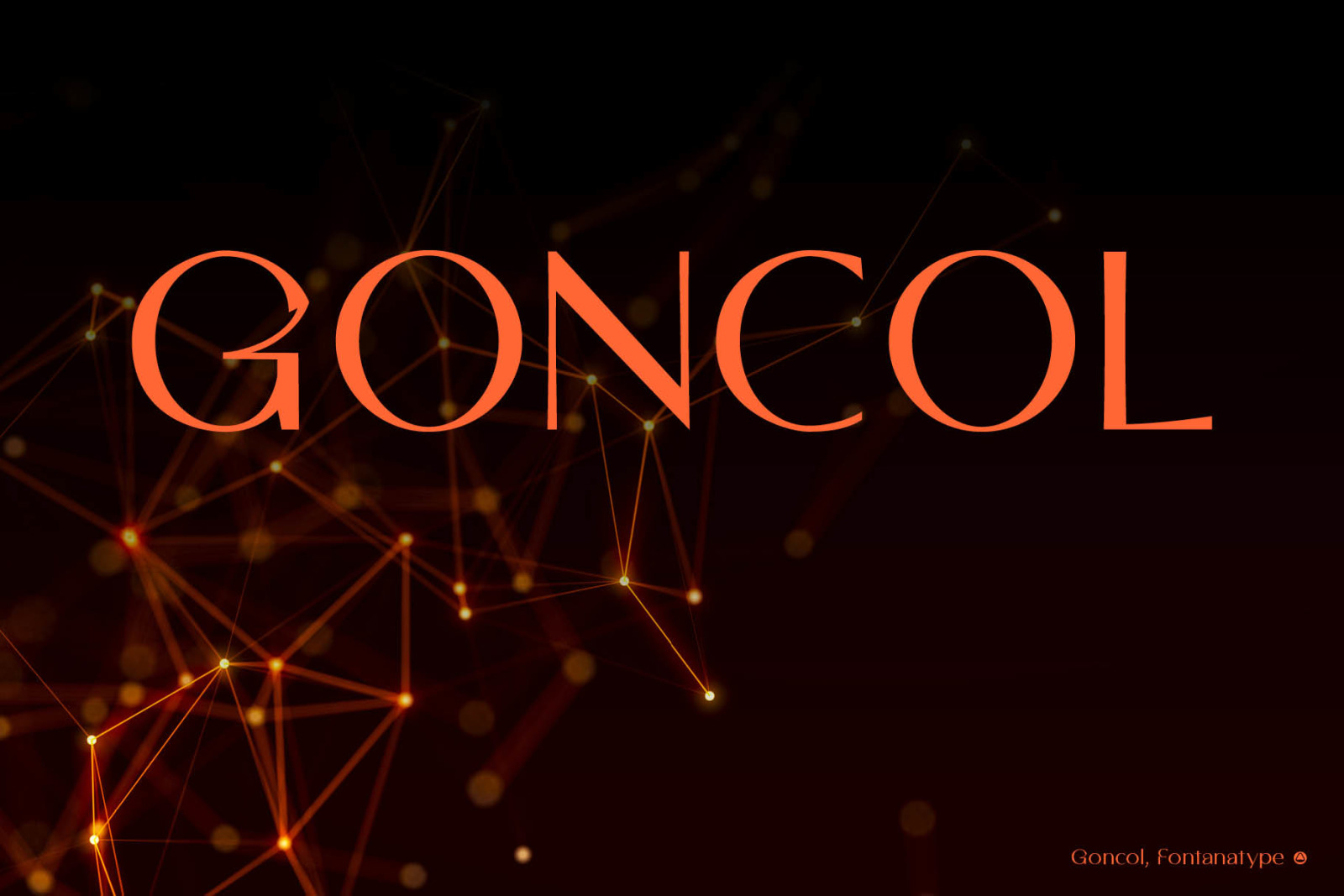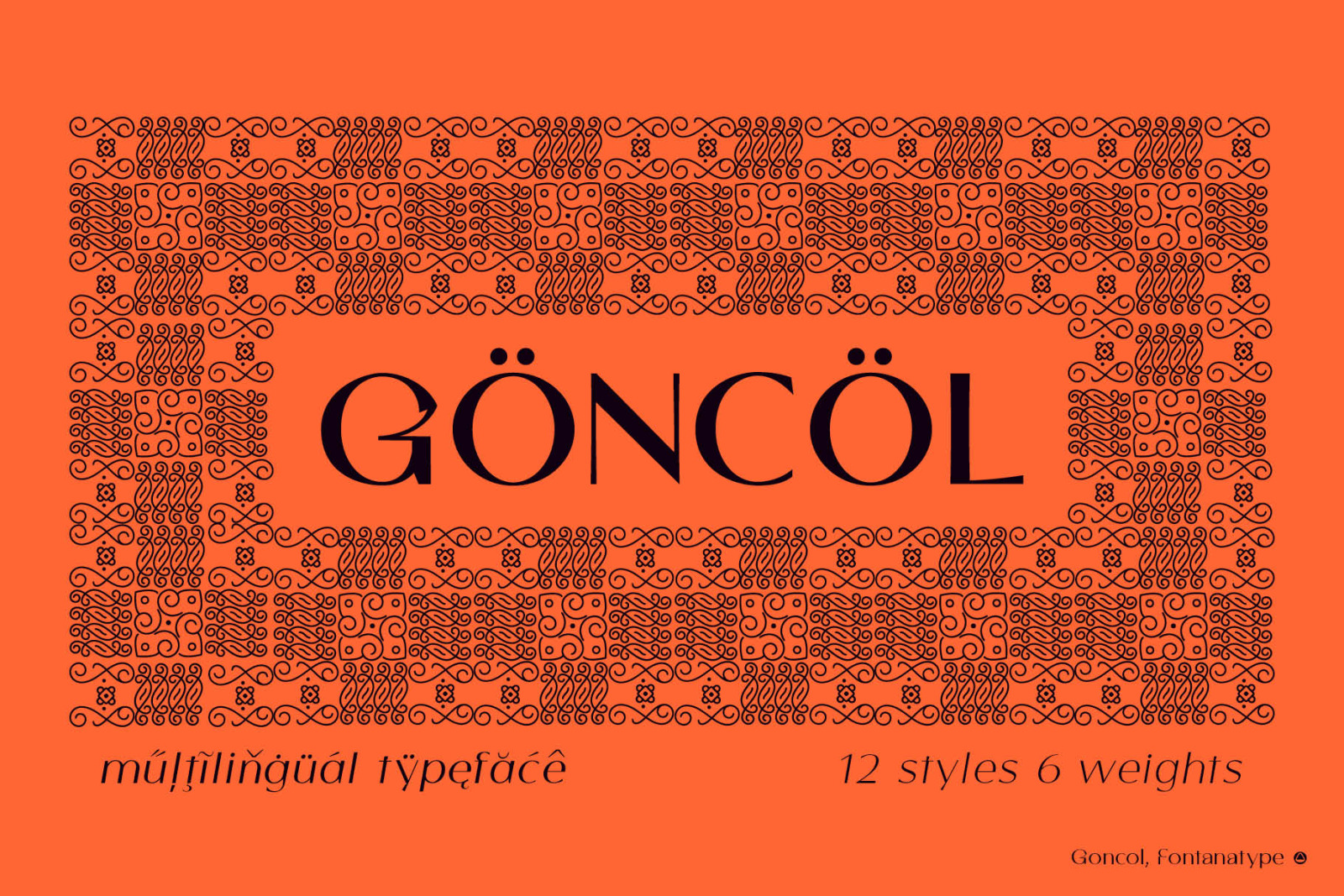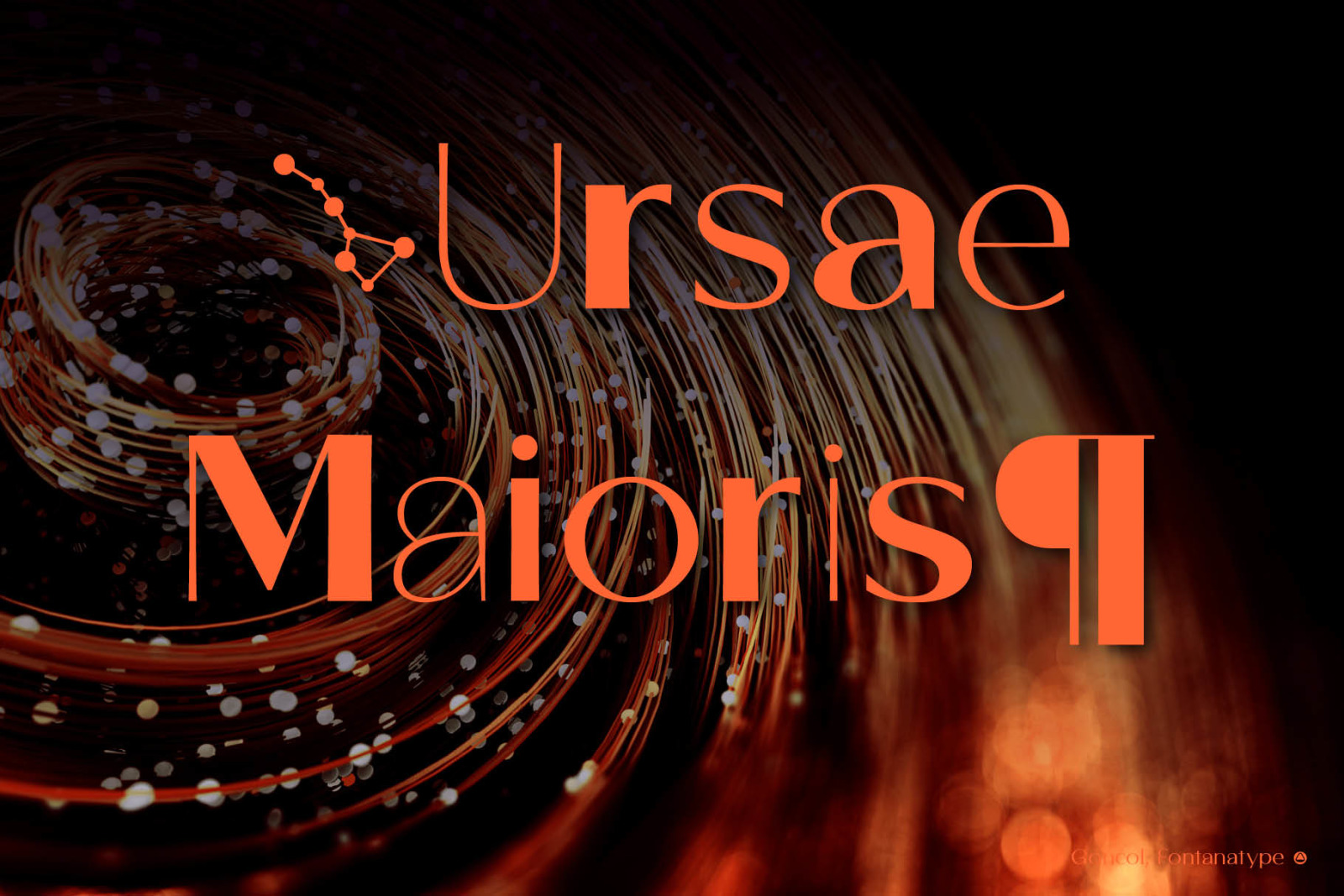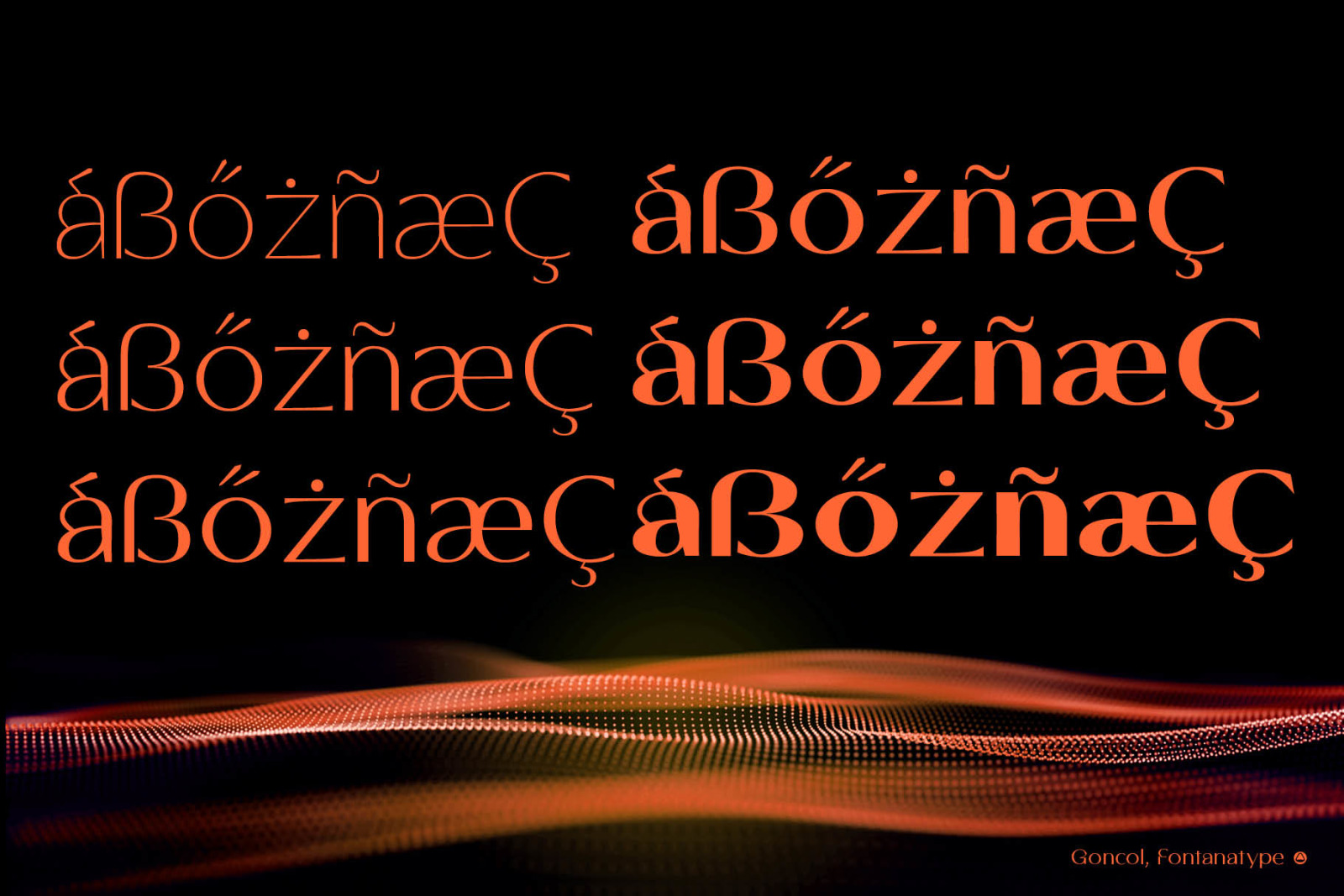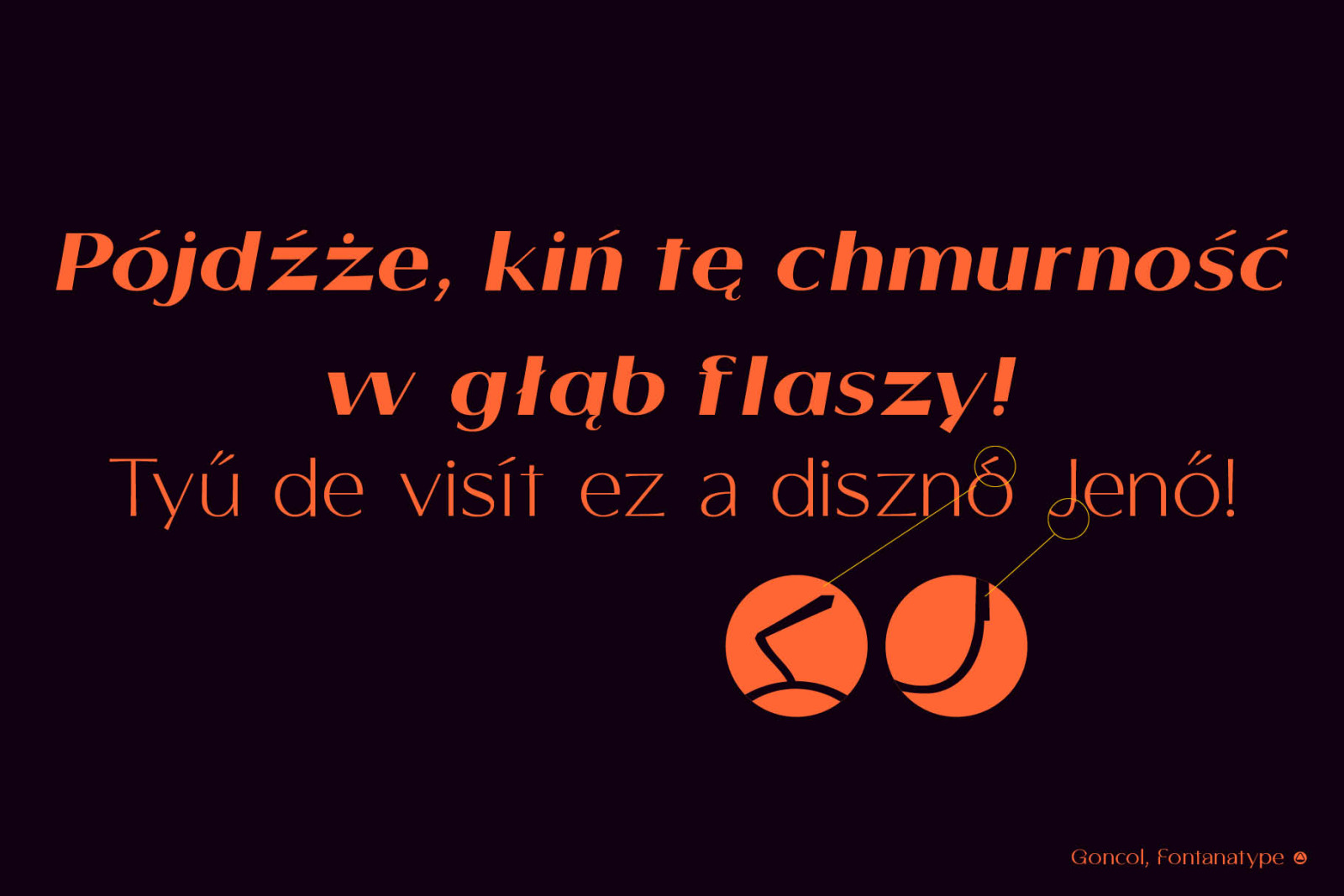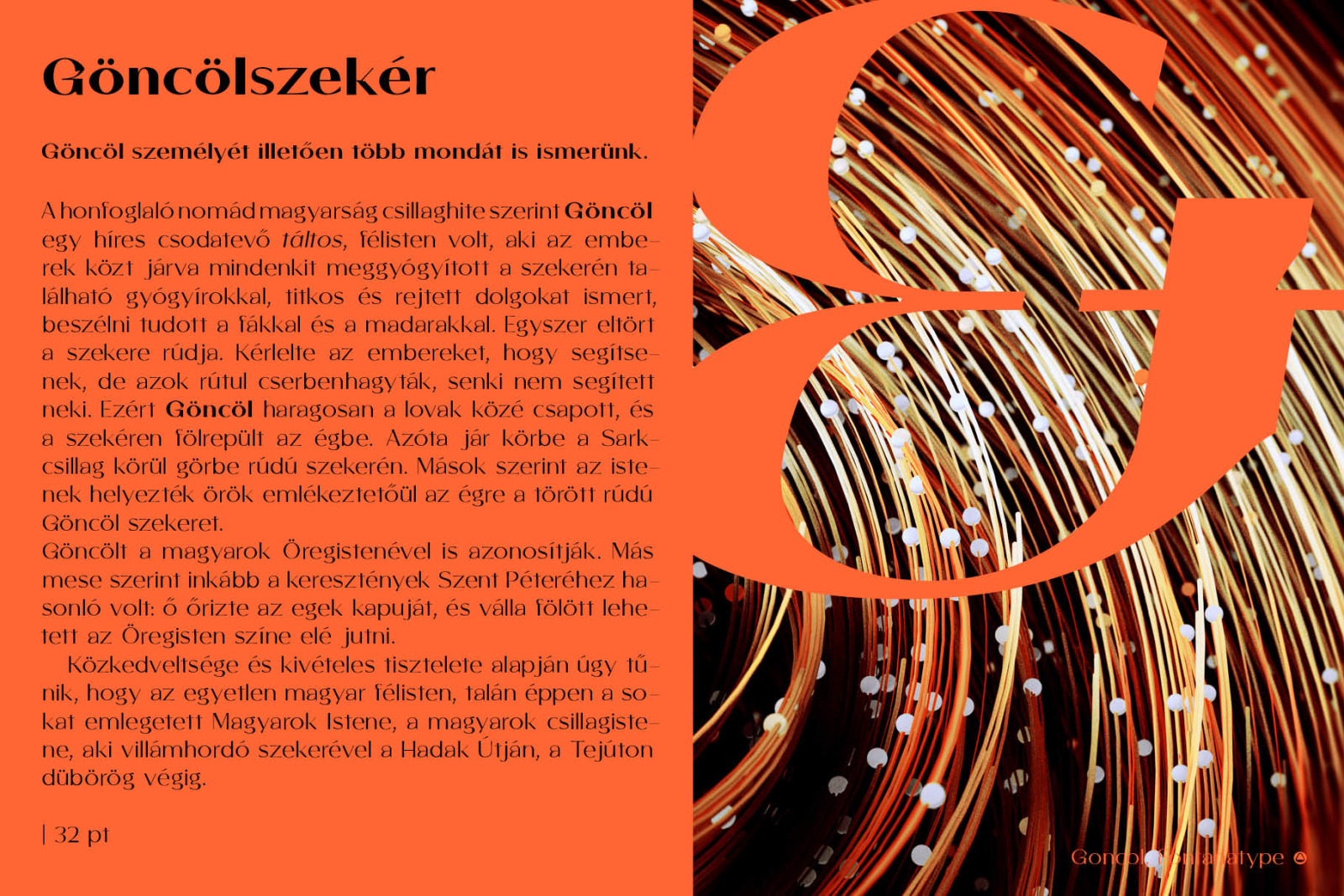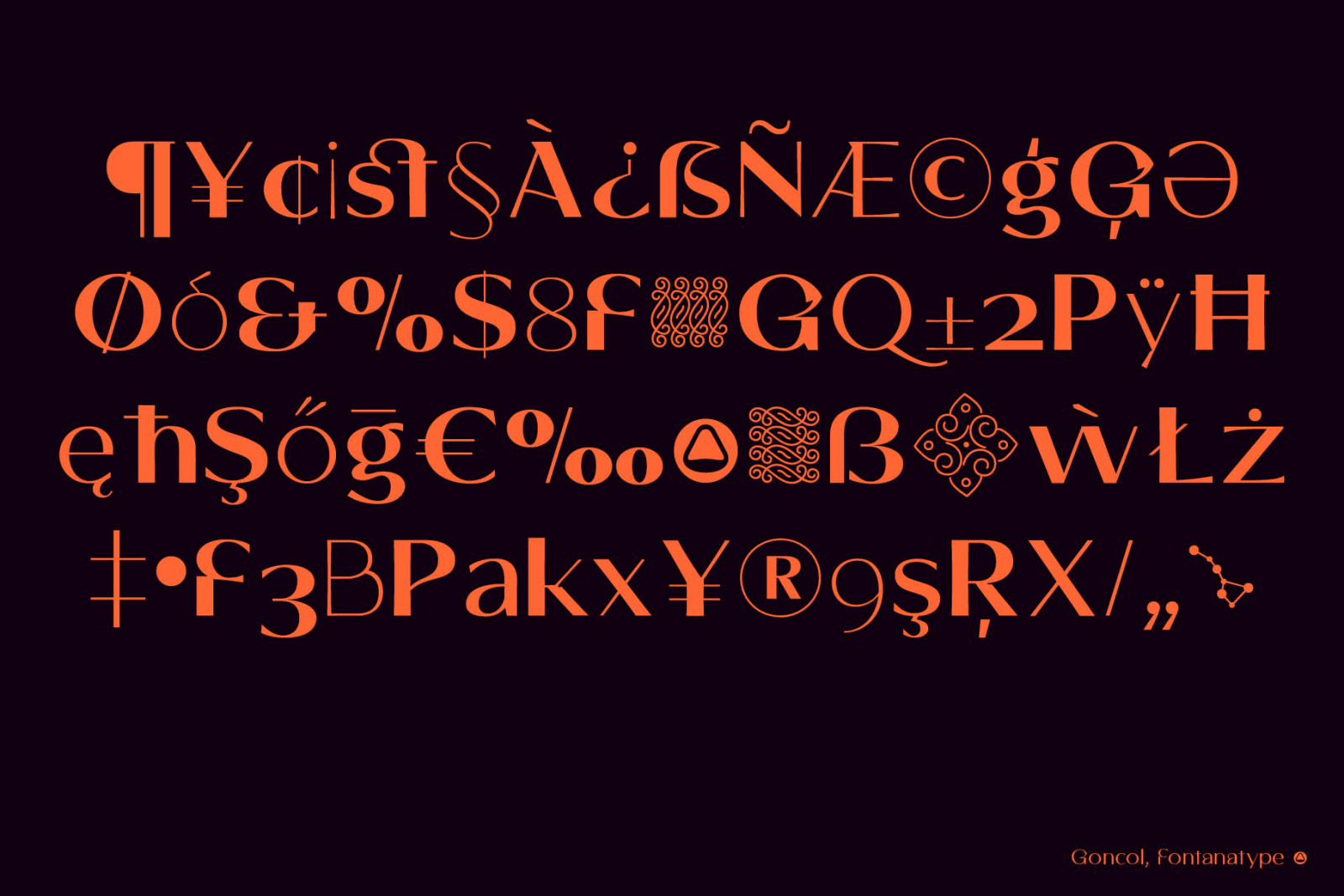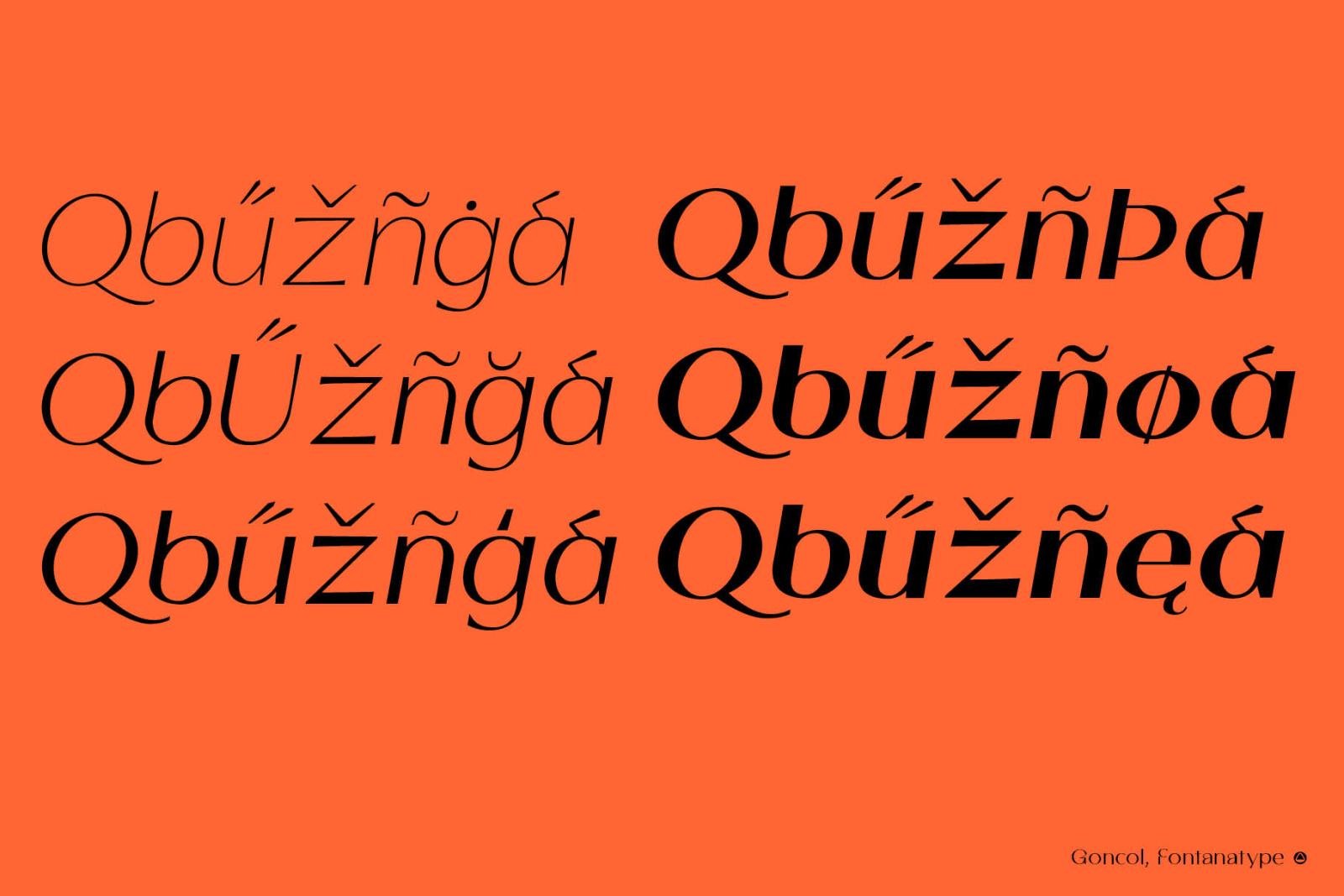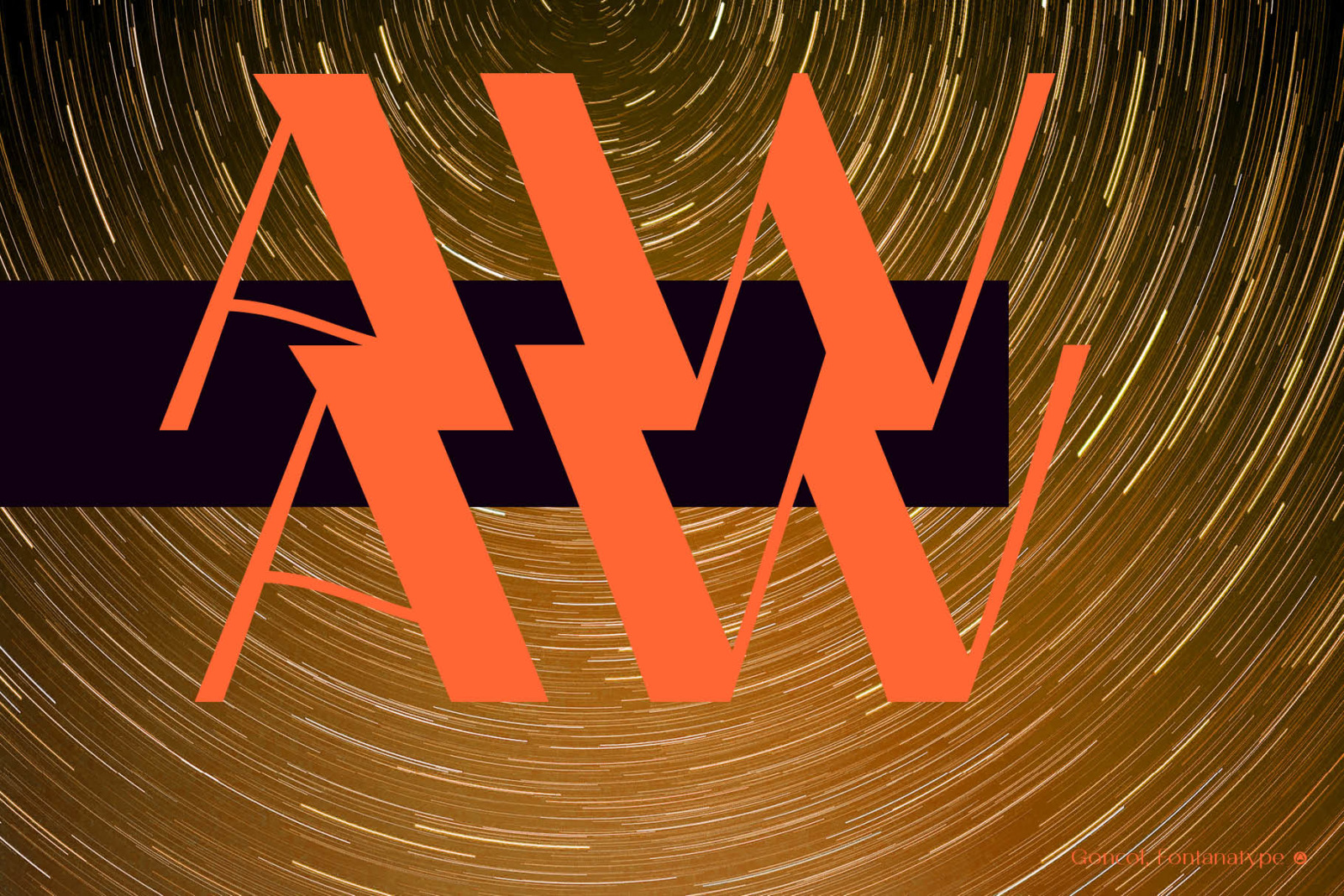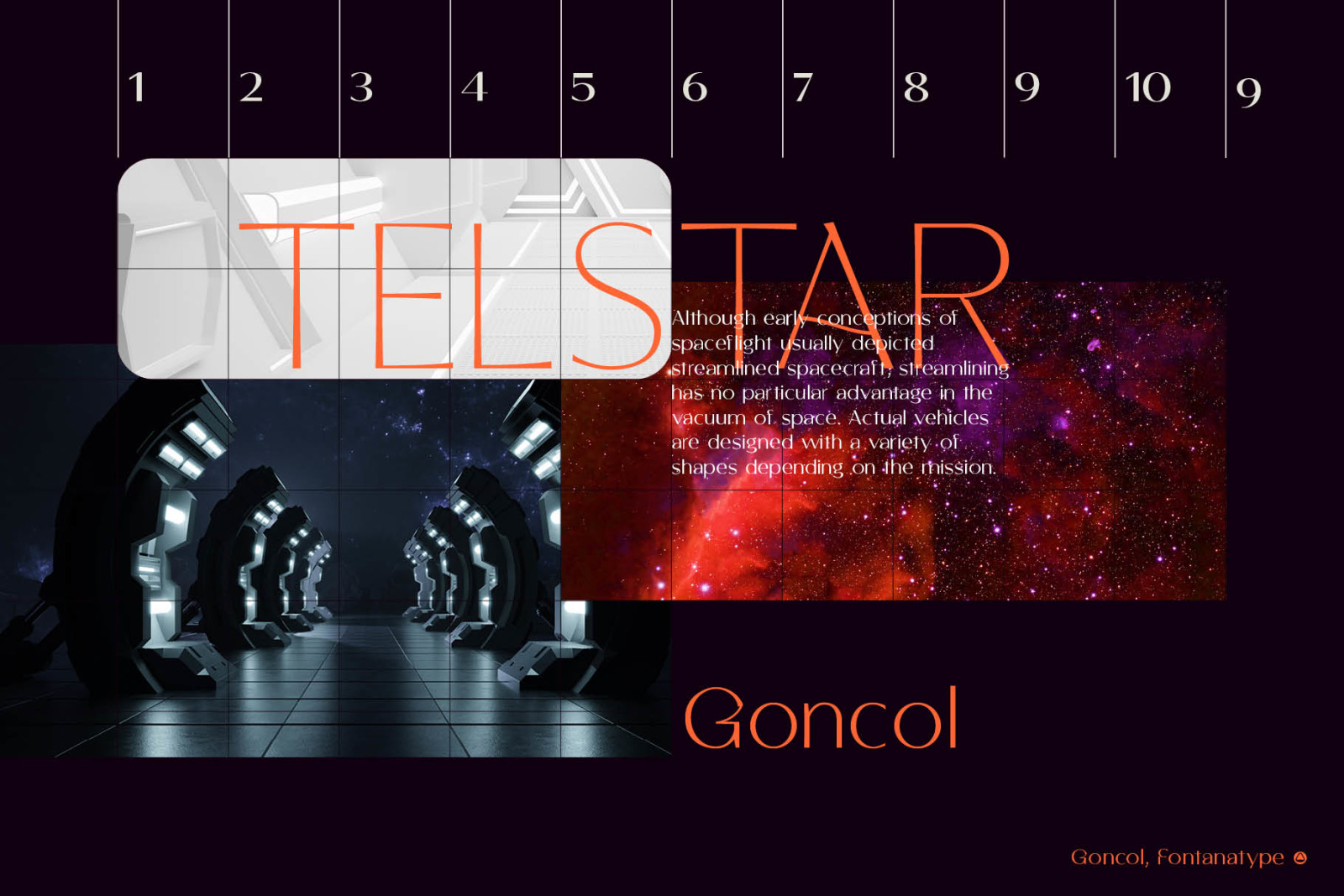
Goncol Font
The Goncol is the newest typeface designed by Amondo Szegi. It’s an elegant, classical-inspired sans serif font, which comes with an italic version as well. This typeface is a perfect mix of a nostalgic vintage and a modern look. It is an ideal candidate for your next design project. The typeface was also designed to look great in both large and small sizes. Works well as a headline or editorial text. The additional creative ligatures, ornaments, and alternative characters create the opportunity to design classical and elegant layouts such as mastheads, magazines, feminine logos, wedding invitations, Instagram posts, websites, blog posts, pull quotes, editorials, and more.